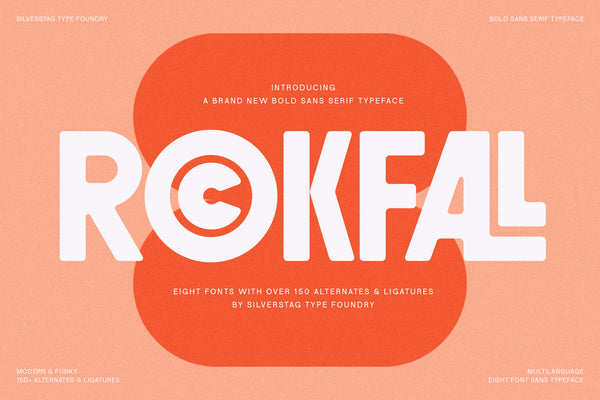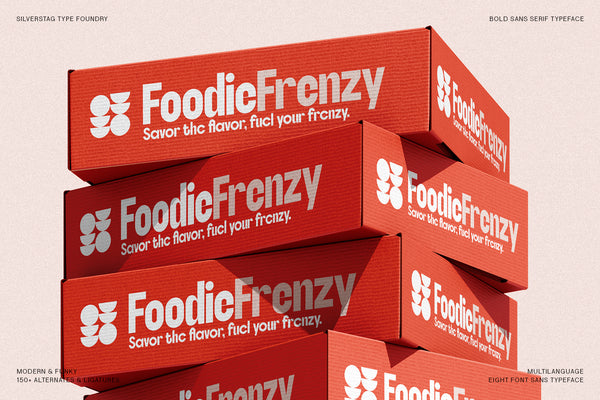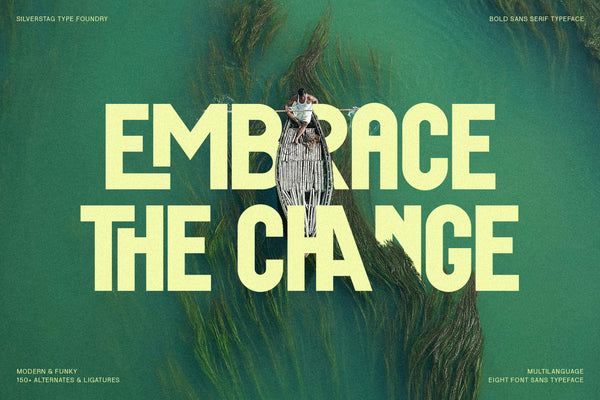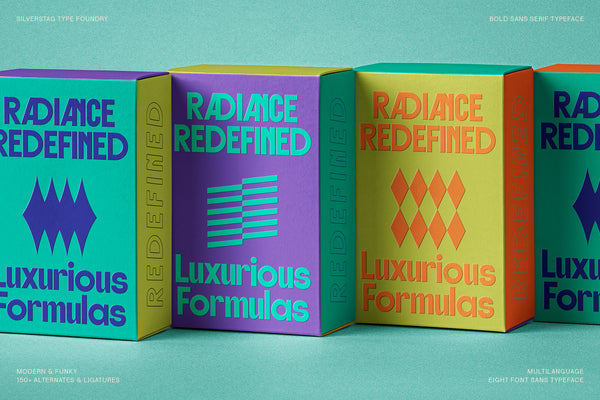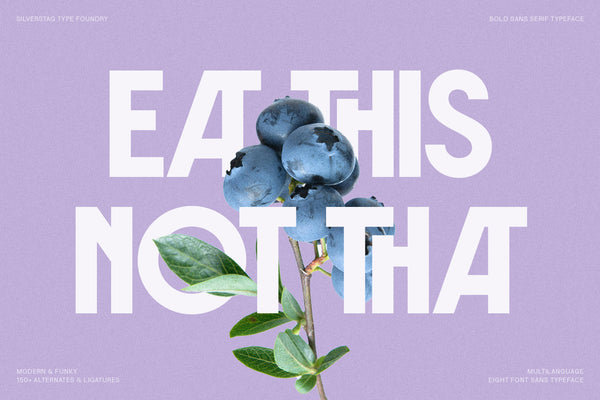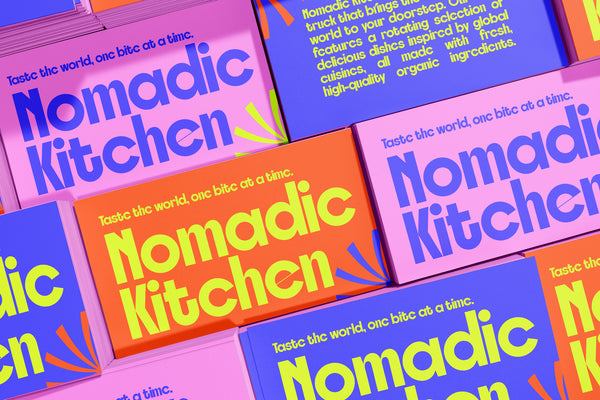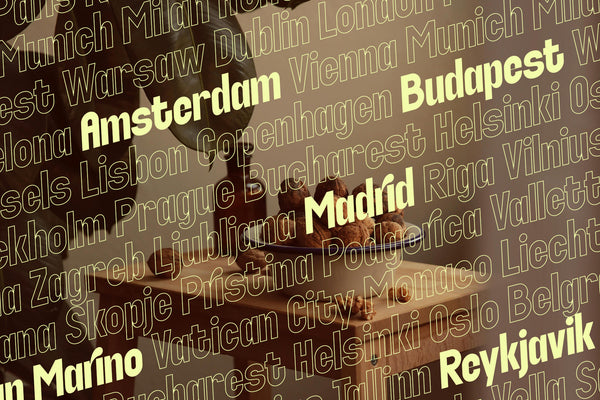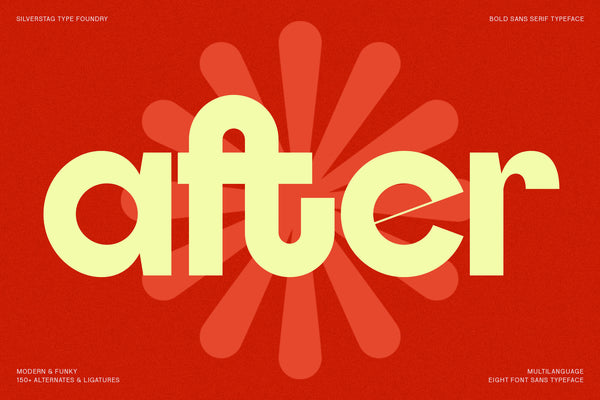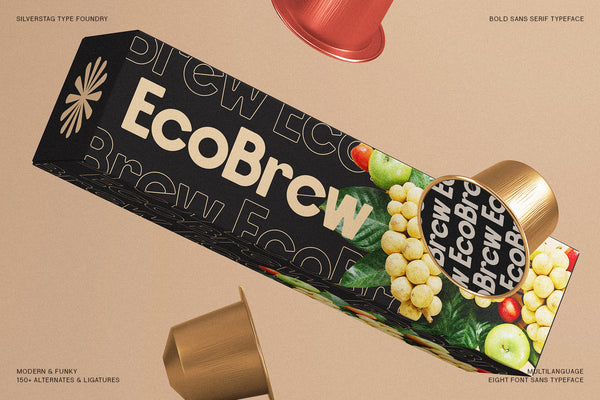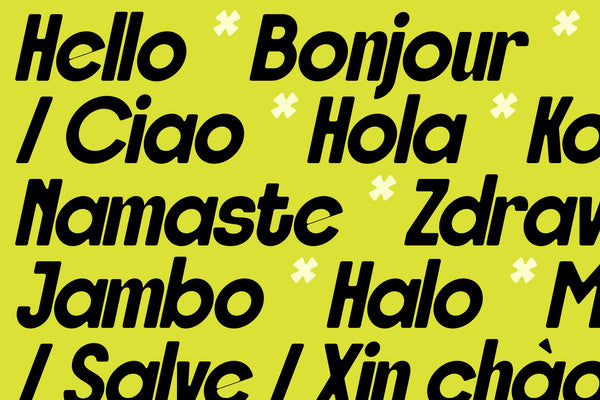
ROCKFALL is a heavy-hitting display typeface inspired by the rebellious spirit of the 1970s. Channeling the grit and power of vintage rock posters, bold signage, and classic album covers, ROCKFALL delivers unapologetic personality with every letter.
With 8 font styles—Regular, Round, Regular Outlined, Round Outlined, and matching Italics for each—ROCKFALL gives you the creative flexibility to design with edge and attitude. Whether you’re building a retro brand, designing apparel graphics, or creating music-themed visuals, this font holds its ground.
Packed with 150+ ligatures and alternates, ROCKFALL brings custom flavor and dynamic letterflow to your headlines, logos, and layouts. From sharp and impactful to nostalgic and playful, it adapts to your aesthetic with ease.
Fully PUA encoded and supporting 90+ languages, ROCKFALL is ready to rock global audiences in print, web, and merchandise design.